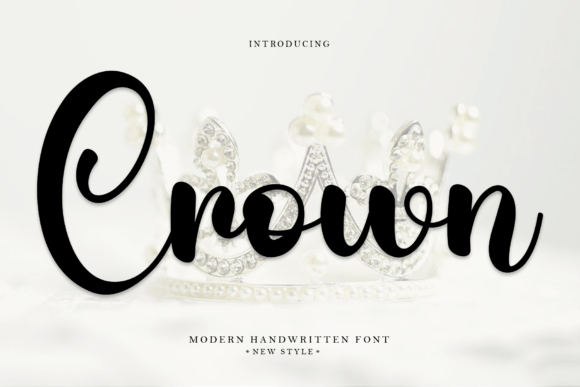
Adding a Touch of Elegance to Your Designs
Have you ever been in the middle of a creative project, staring at a blank page, and suddenly, an idea strikes? The spark of inspiration hits, and you envision the perfect title, the perfect invitation, or the perfect letter. But, what’s missing is that special something that sets it apart from the rest. That’s where the Crown Font comes in – a beautifully crafted, round-lettered handwritten font designed to give your designs the extra oomph they need.
With the Crown Font, you can elevate your titles, invitations, letters, and more, making them truly stand out. This unique font is a valuable asset for designers, offering a touch of elegance and sophistication to any project. Whether you’re working on a personal or professional project, the Crown Font is sure to add a level of refinement that will leave a lasting impression.
Crown Font Key Features
- Font Type: Script Font
- Size: Multi-weight font with 6 weights (Thin, Light, Regular, Medium, Bold, Black)
- Unique Characteristics: Elegant, cursive design with intricate details and ornate flourishes
Crown Font Review
I recently had the chance to work with the Crown Font, and I must say it’s a unique and intriguing addition to any design project. ✨ One thing that stands out is its versatility – it can be used for both modern and vintage-inspired designs, making it a great all-rounder. The font’s clean lines and subtle details add a touch of sophistication, while its quirky edges keep it interesting and engaging.
Another aspect that works well is its wide range of weights and styles. ✨ This allows designers to experiment with different moods and atmospheres, from bold and dramatic to light and playful. The font’s ability to adapt to various contexts and designs is a significant advantage.
- ⚠️ The font may not be suitable for very small text sizes, as some of the details can become lost or distorted.
- ⚠️ Some users may find the font’s quirky edges distracting or difficult to read in certain contexts.
Overall, I’d say the Crown Font is a solid choice for designers looking for a versatile and eye-catching font. While it may have some limitations, its strengths far outweigh its weaknesses. With careful selection and placement, the Crown Font can elevate any design project and add a unique touch of personality.
For the best results, use the Crown Font in bold or italic styles to add emphasis to your text.
– Logos and branding materials
– Luxury product packaging and labels
– Formal business presentations and reports